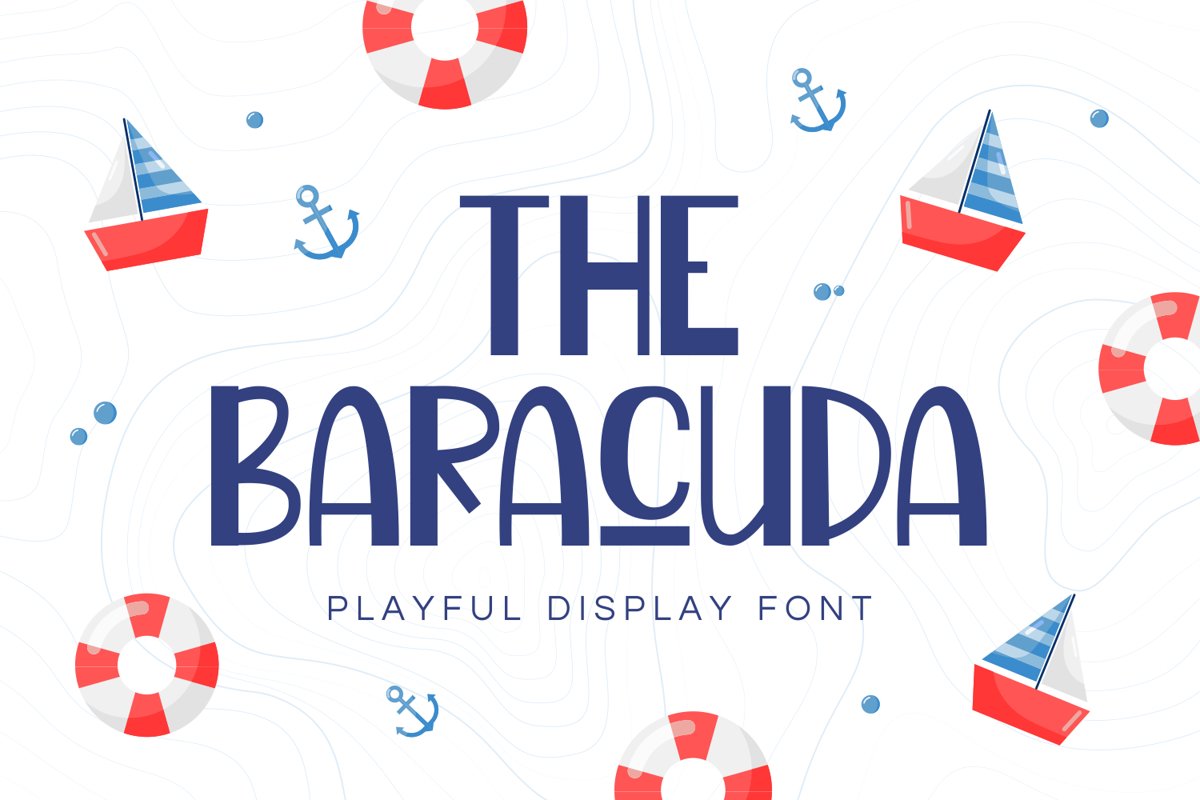
Baracuda is a fun sans serif typeface come with playful themes. It matches applies in some designs such as the logotype, brand, packaging, quotes, kids poster, shirt, children’s book and more custom design. The features uppercase, lowercase, numeral, punctuation & symbol, multilingual support, PUA encoded (fully accessible without additional design software).
Baracuda